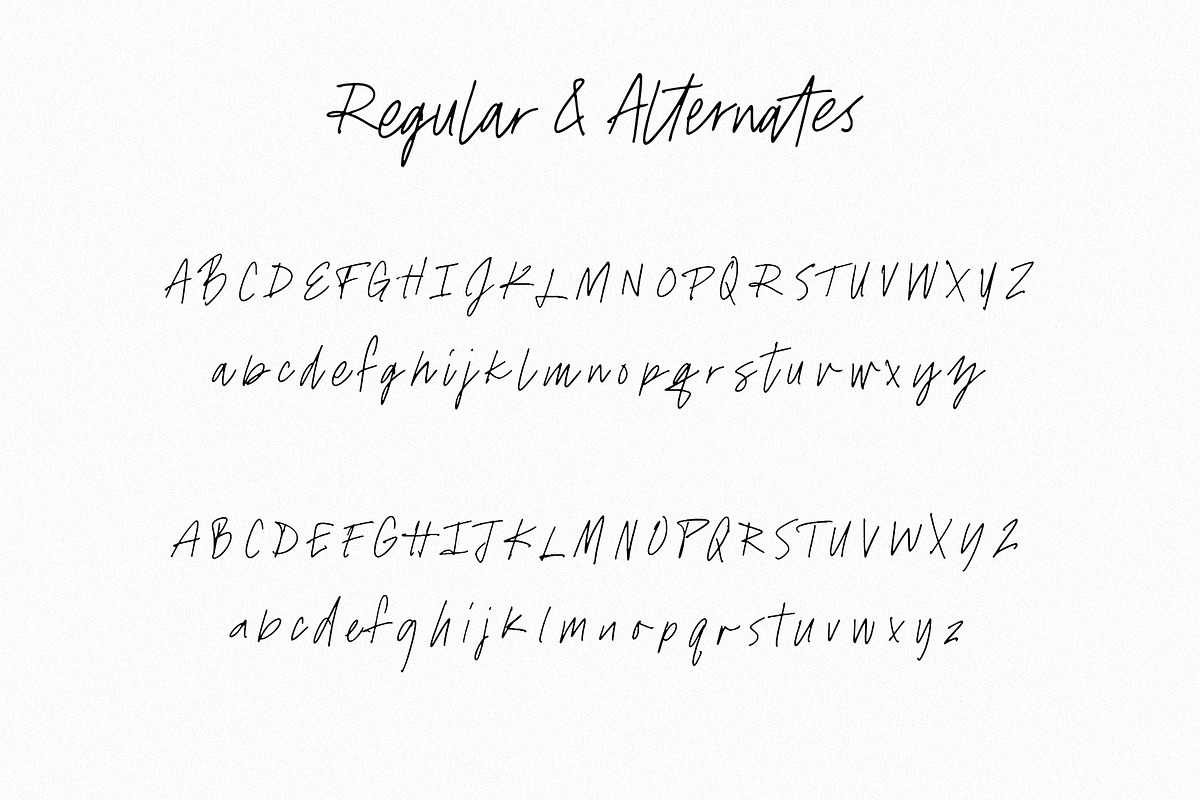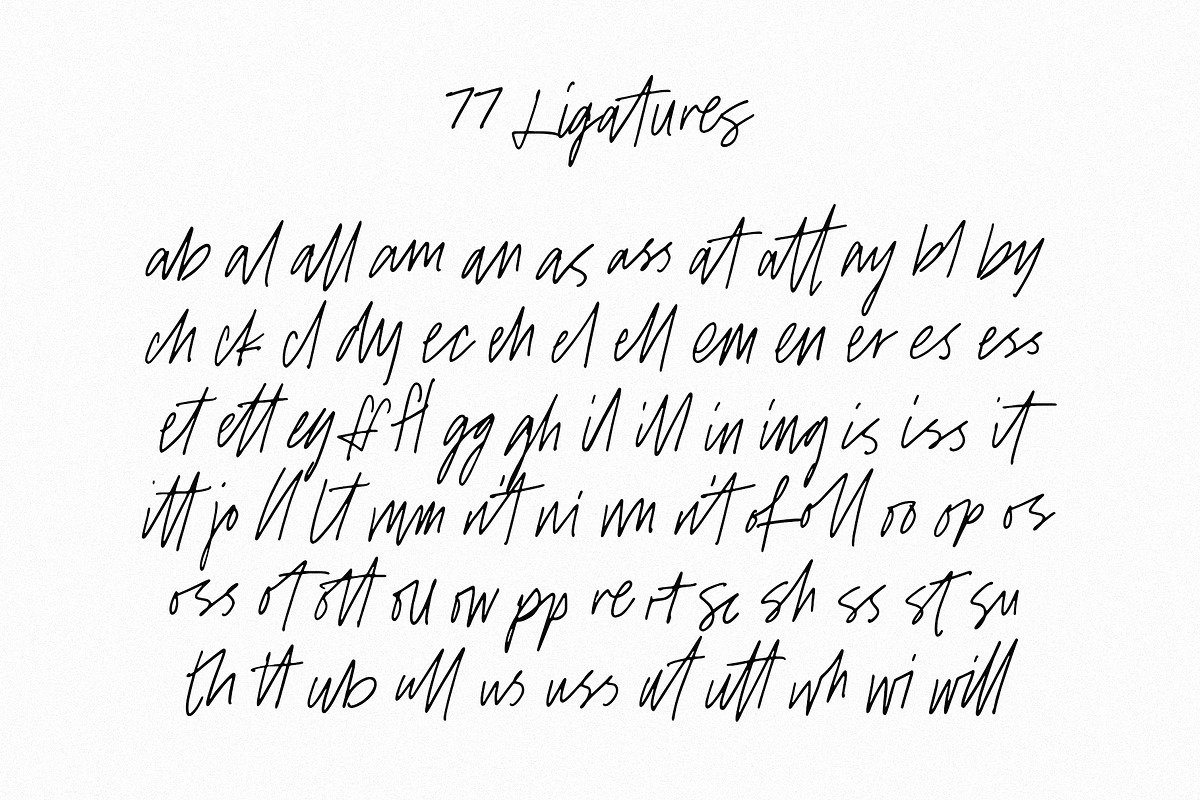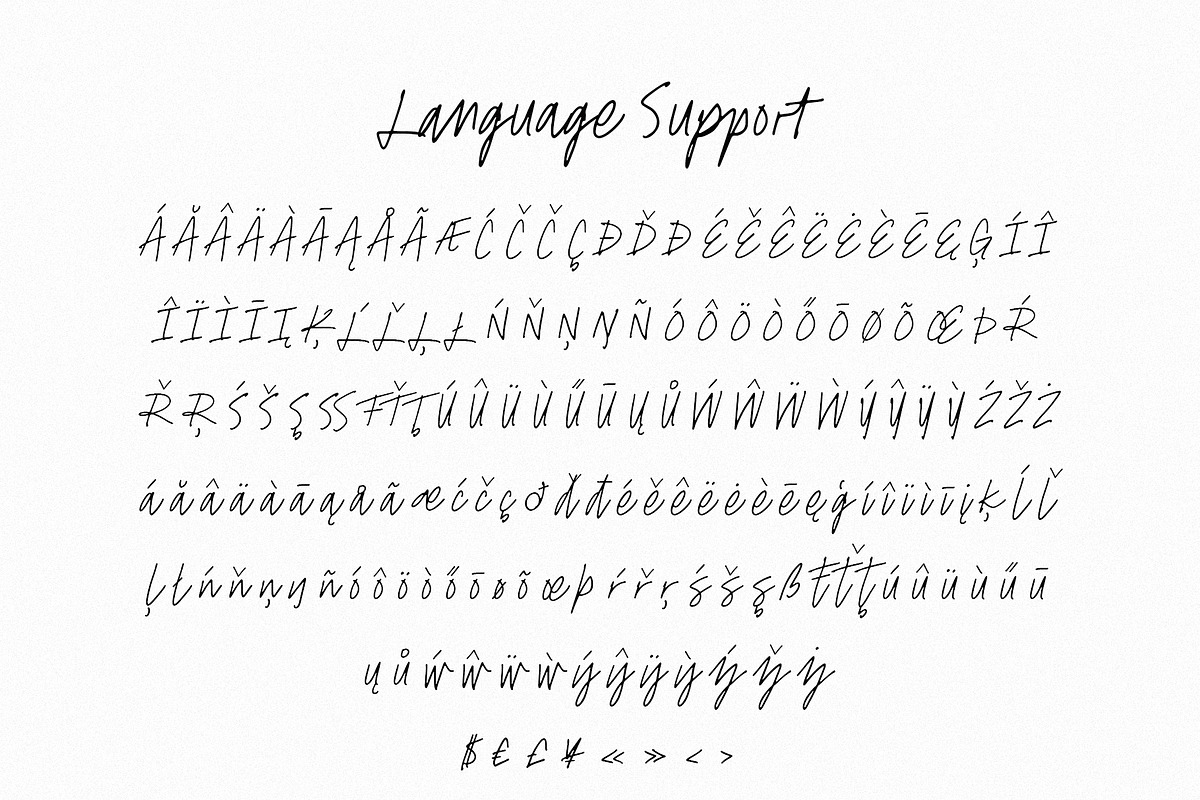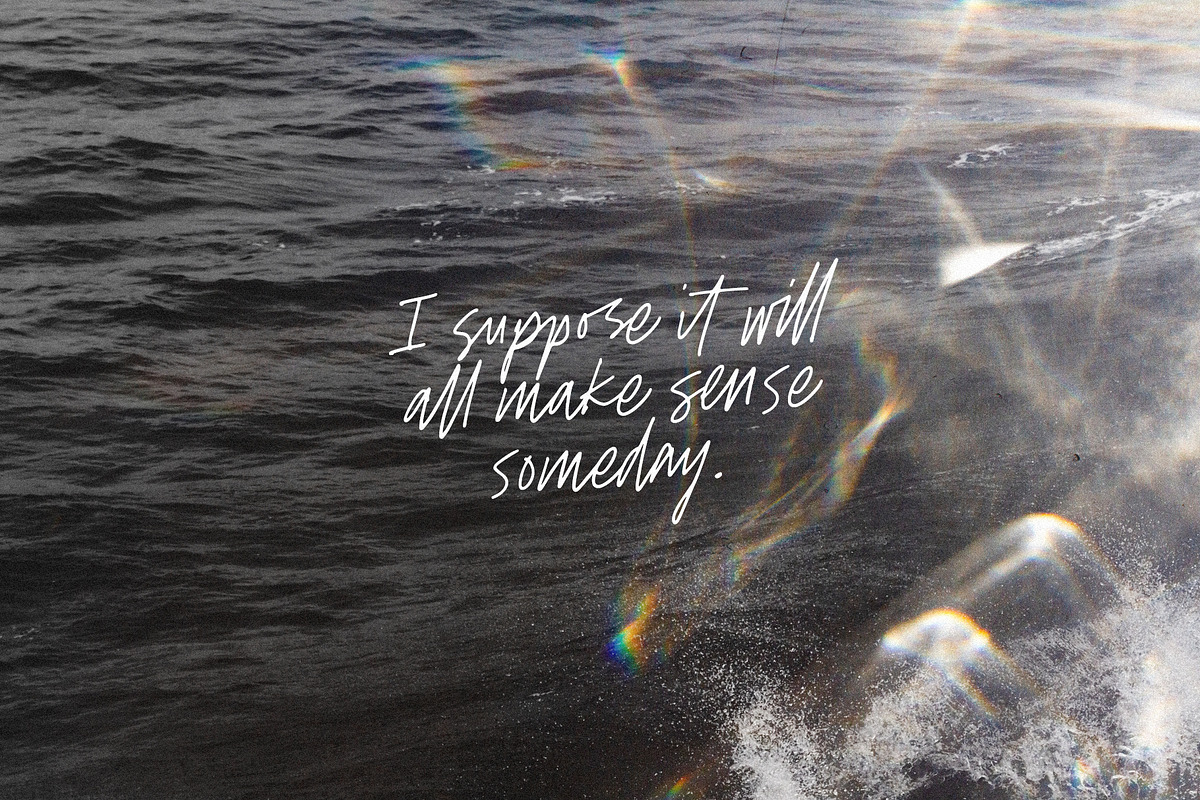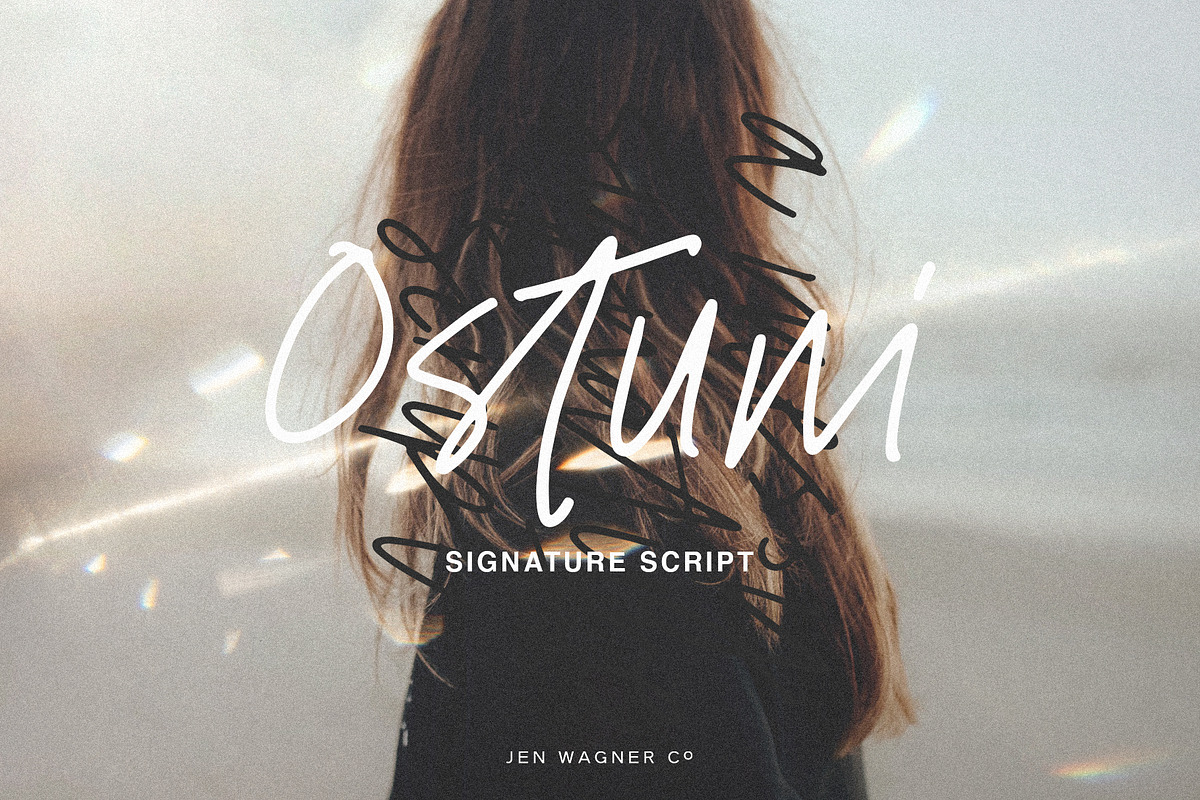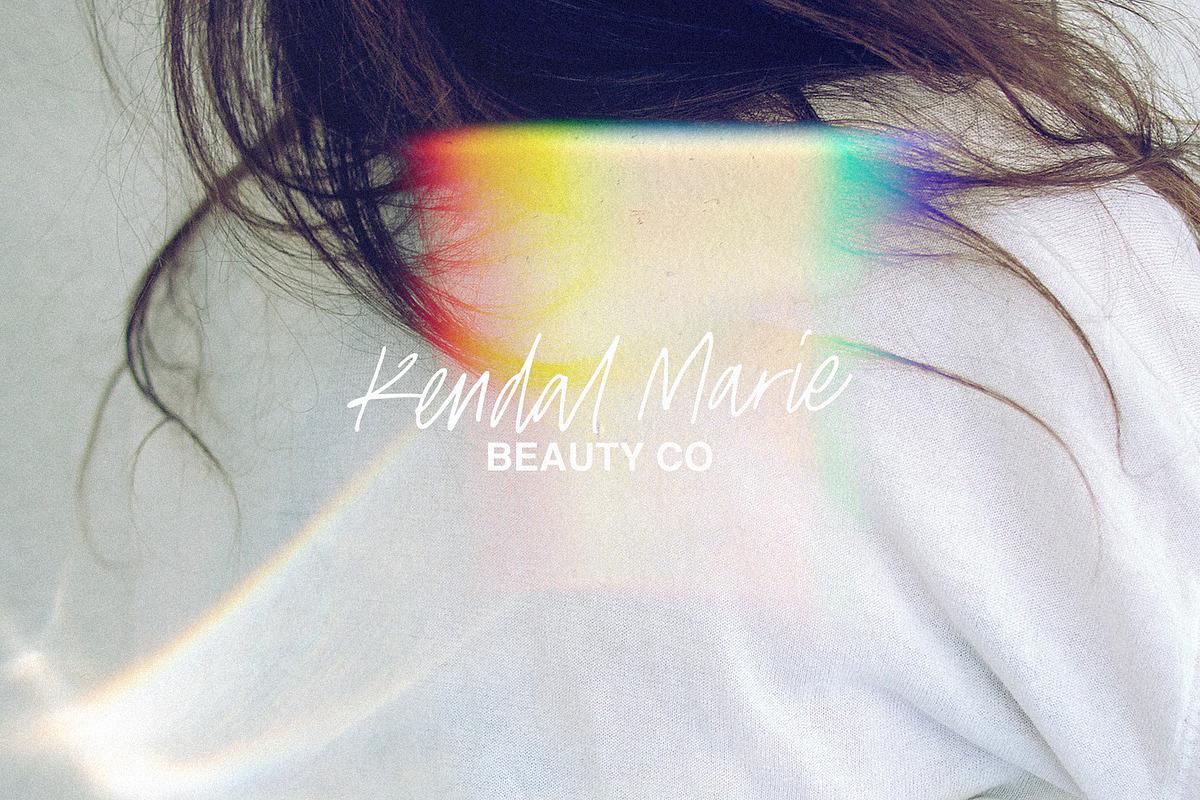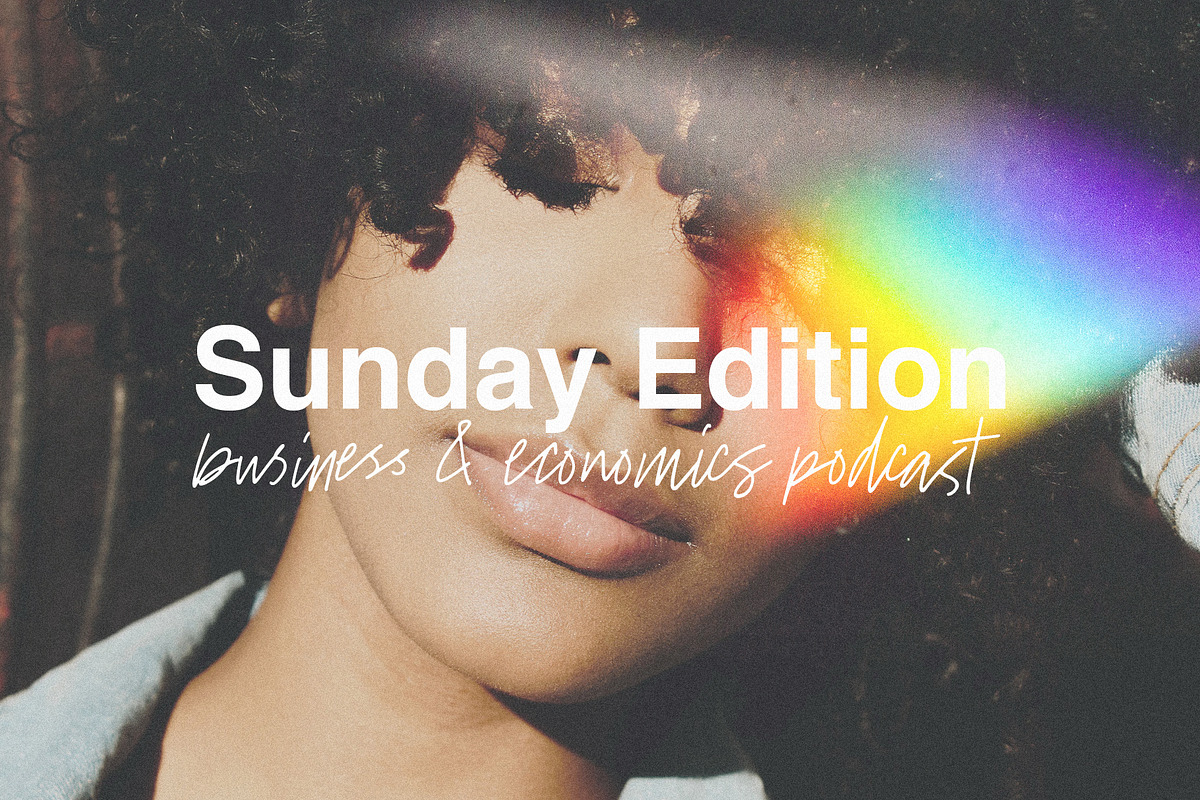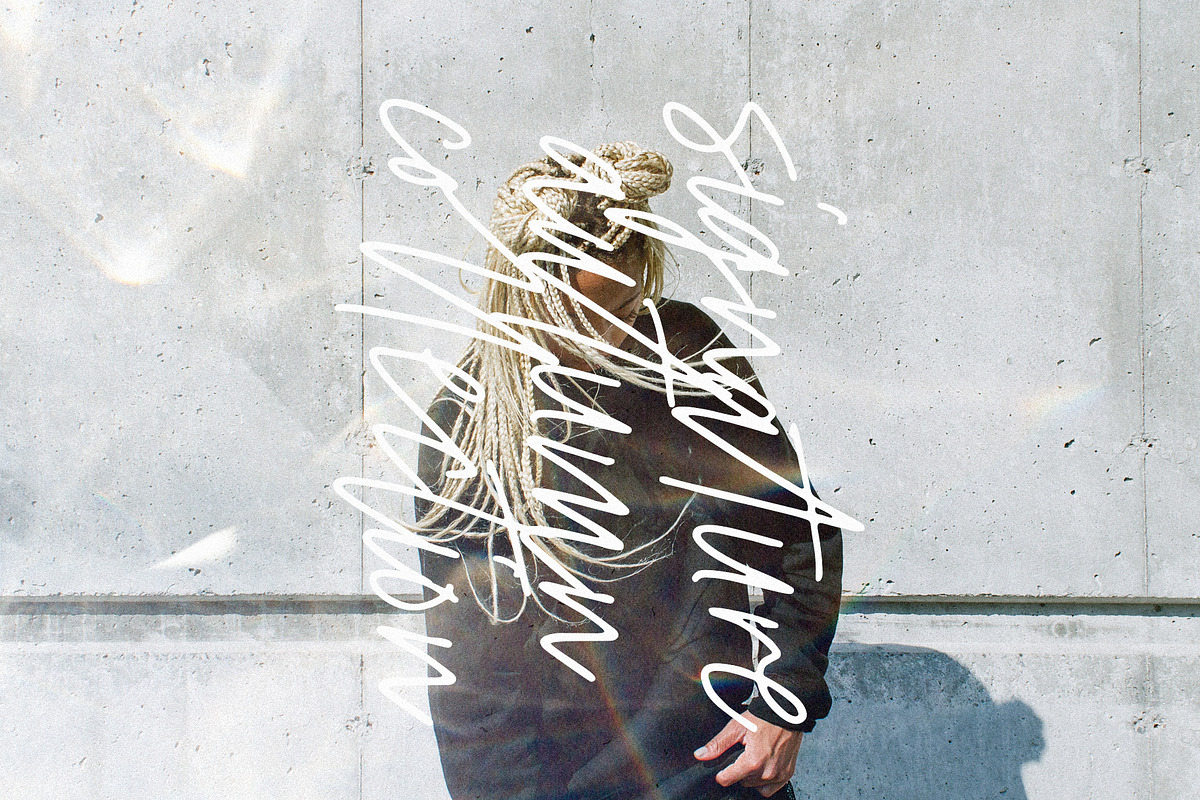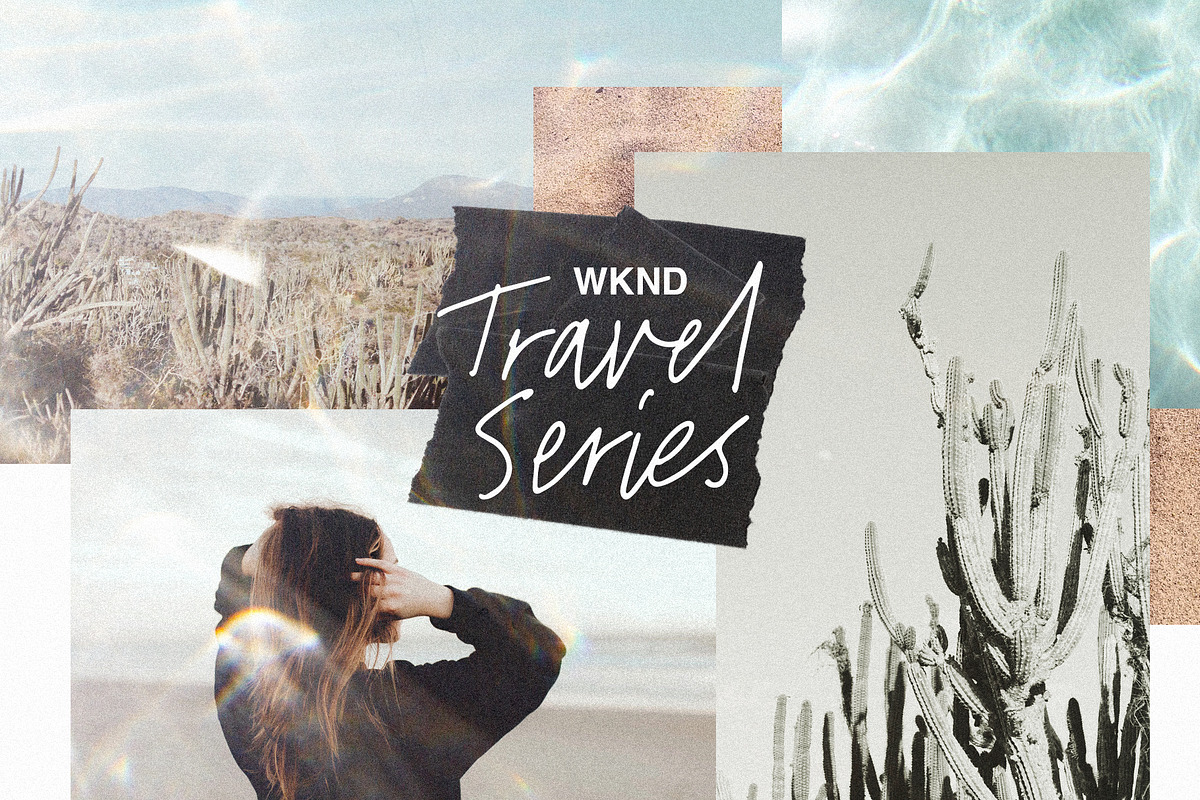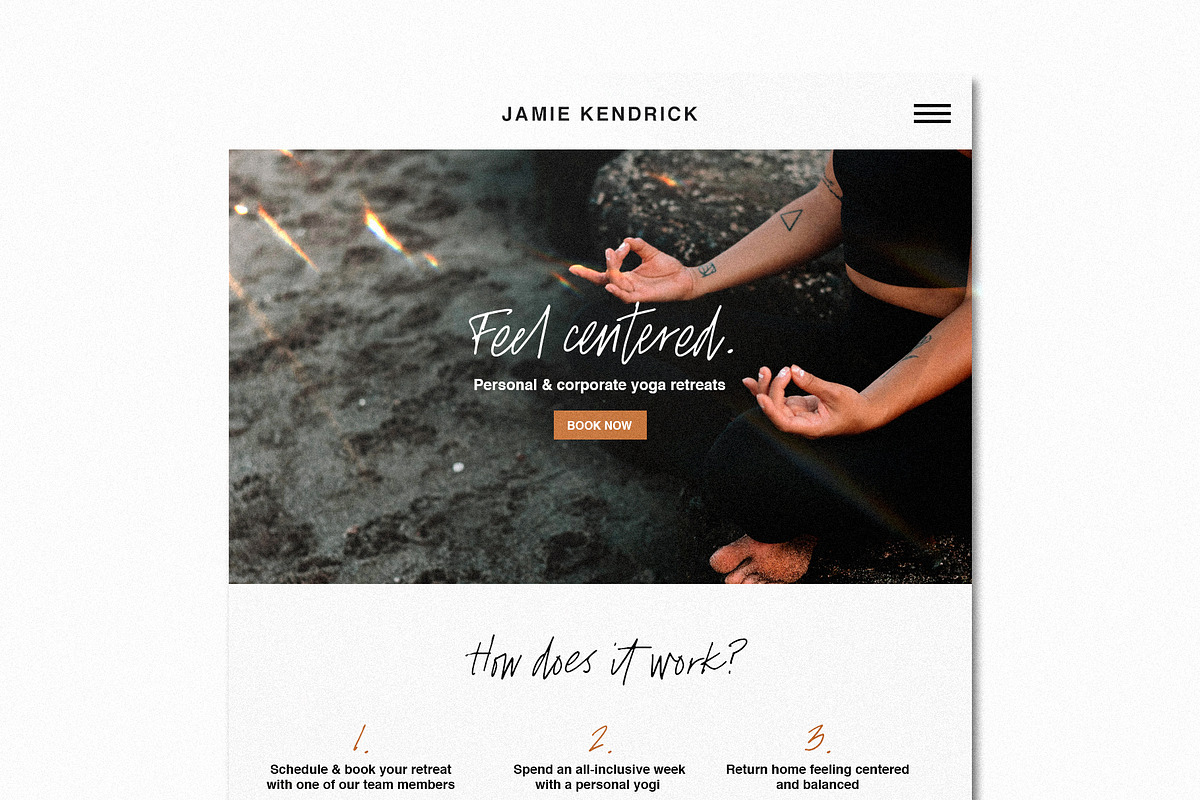
Ostuni | A Modern Signature Script
Ostuni Script was developed after I was unable to find a particular type of messy, signature script for logos and labels. I particularly loved the idea of being able to use a messy script in a more unconventional way – for example, as a vertical text element to accentuate other prominent text (like in the cover image).
BIGGEST BENEFITS:
- Messy, handwritten feel that looks great in both practical and abstract contexts
- Alternates for each letter so you can swap out regular letters for the alternates when you have two of the same letters close to one another (i.e. oo or bb) to look as realistic as possible.
- Textured vector version of the font so you can create logos and larger-scale work
- Non-English support for the international designer
- 77 ligatures for a totally handwritten feel
PAIRINGS:
- Helvetica Bold – SO stunning together, and maybe a new favorite pairing of mine